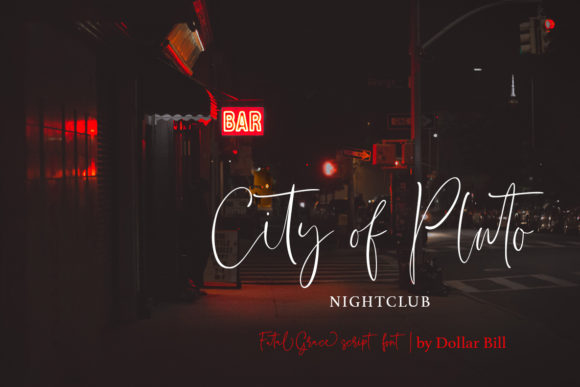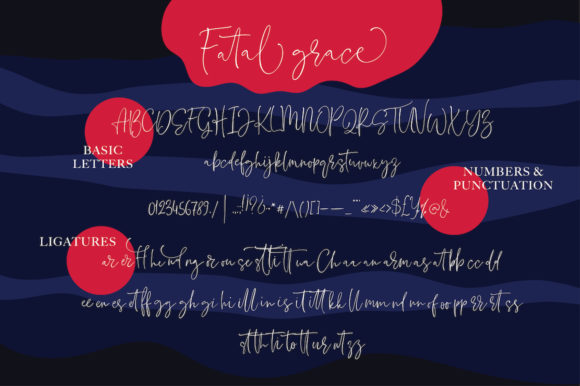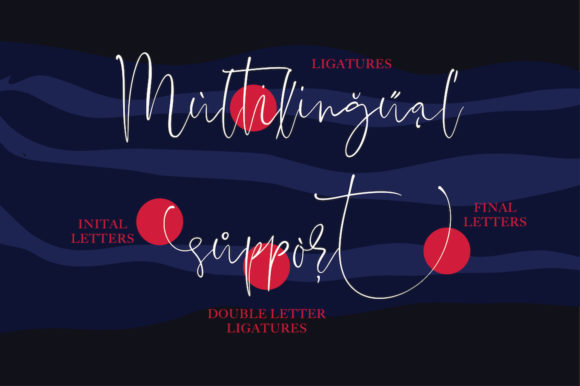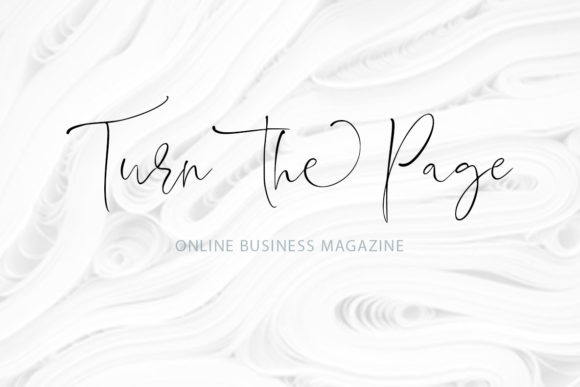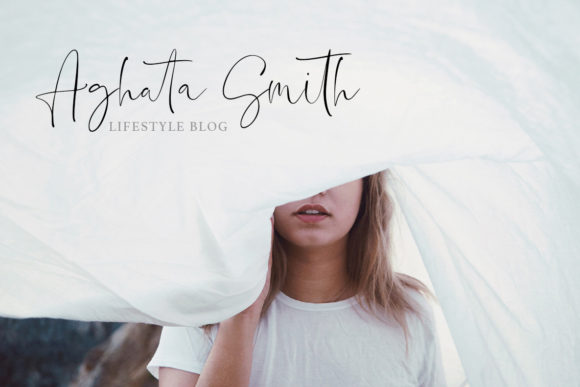
About Fatal Grace Font
Fatal Grace is a magical handwritten font carefully created with a touch of elegance. This is a beautiful combination of timeless elegance and authentic calligraphy. It features an incredibly classic style, while still keeping a friendly feel. This font is the perfect font for making original and outstanding designs.